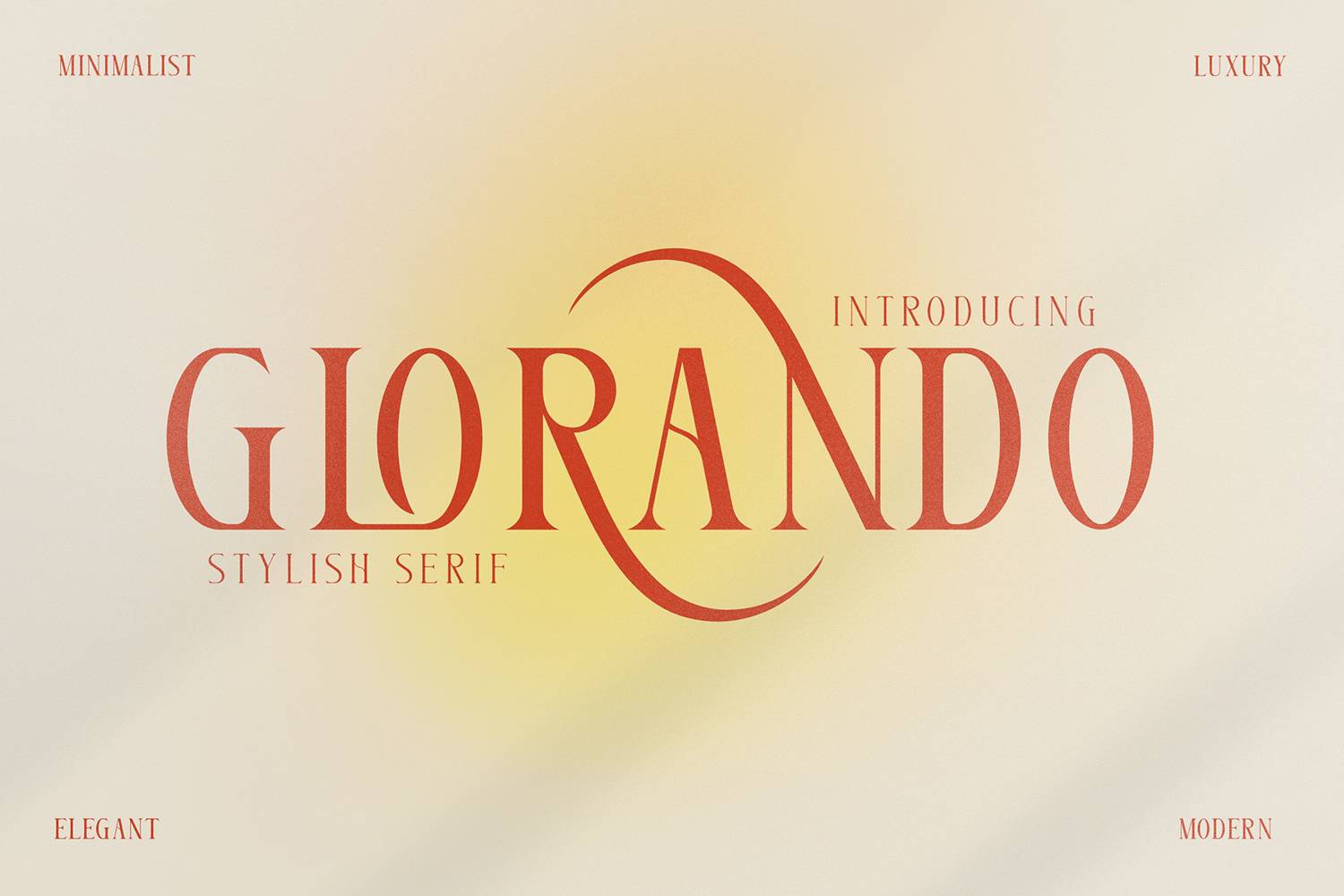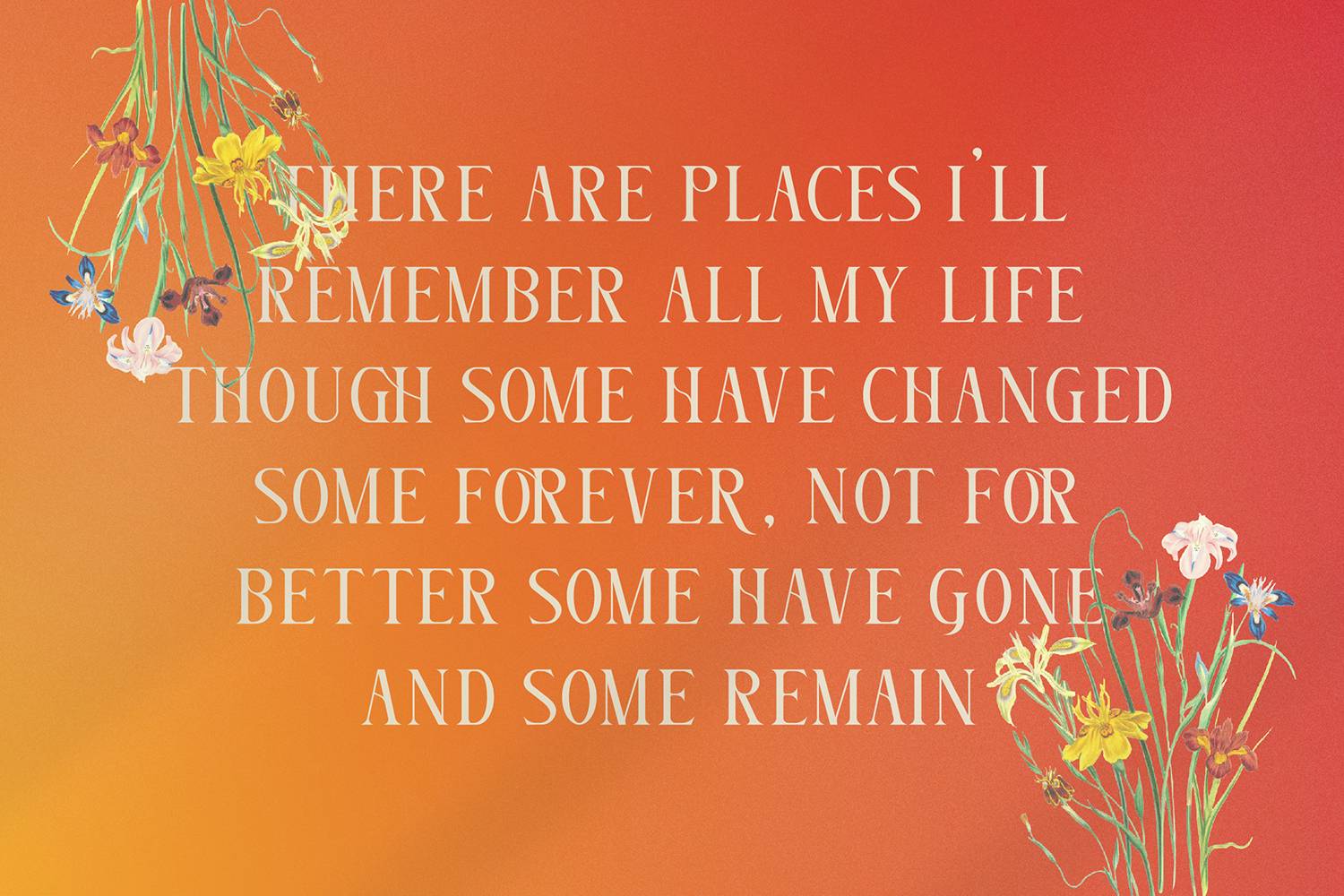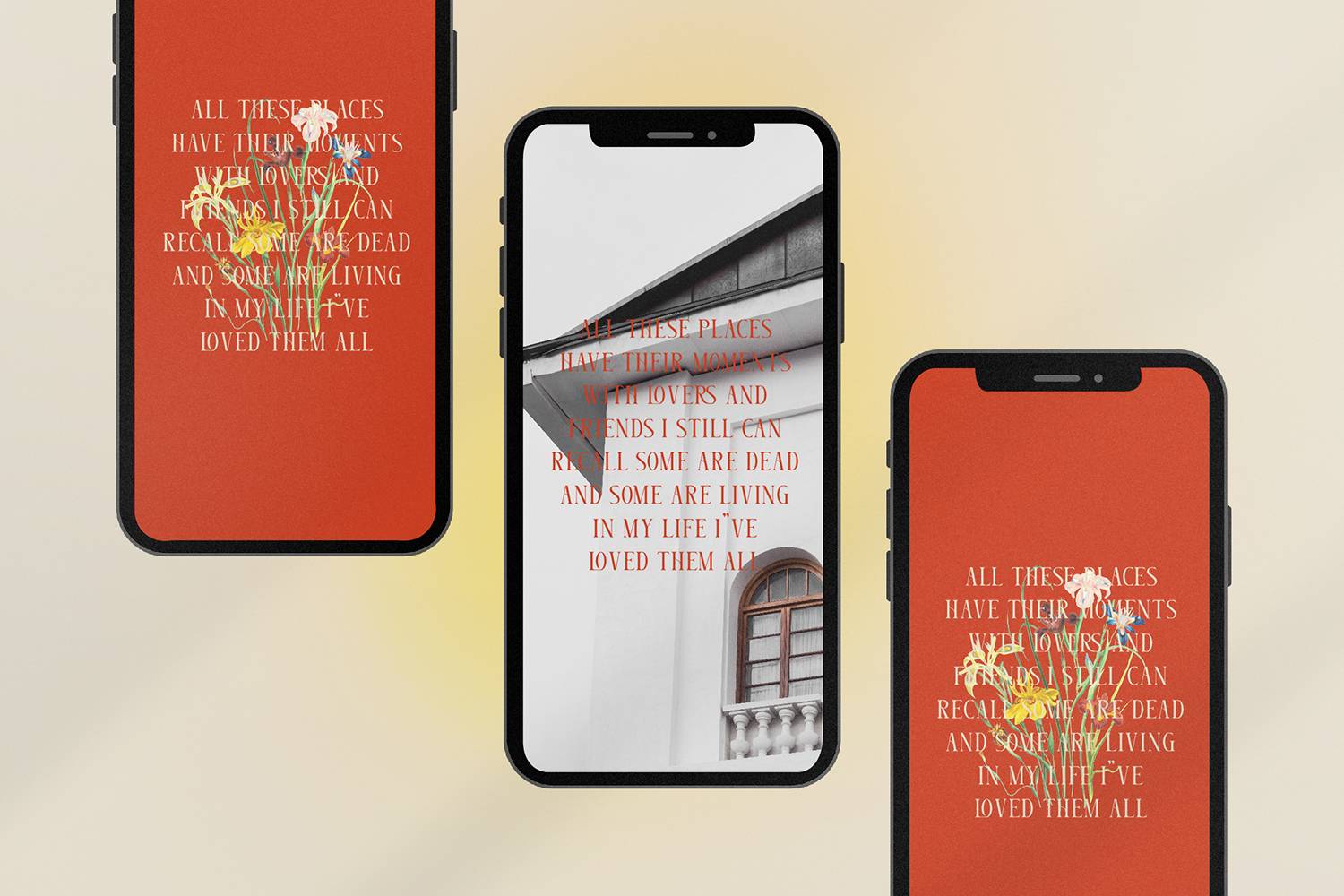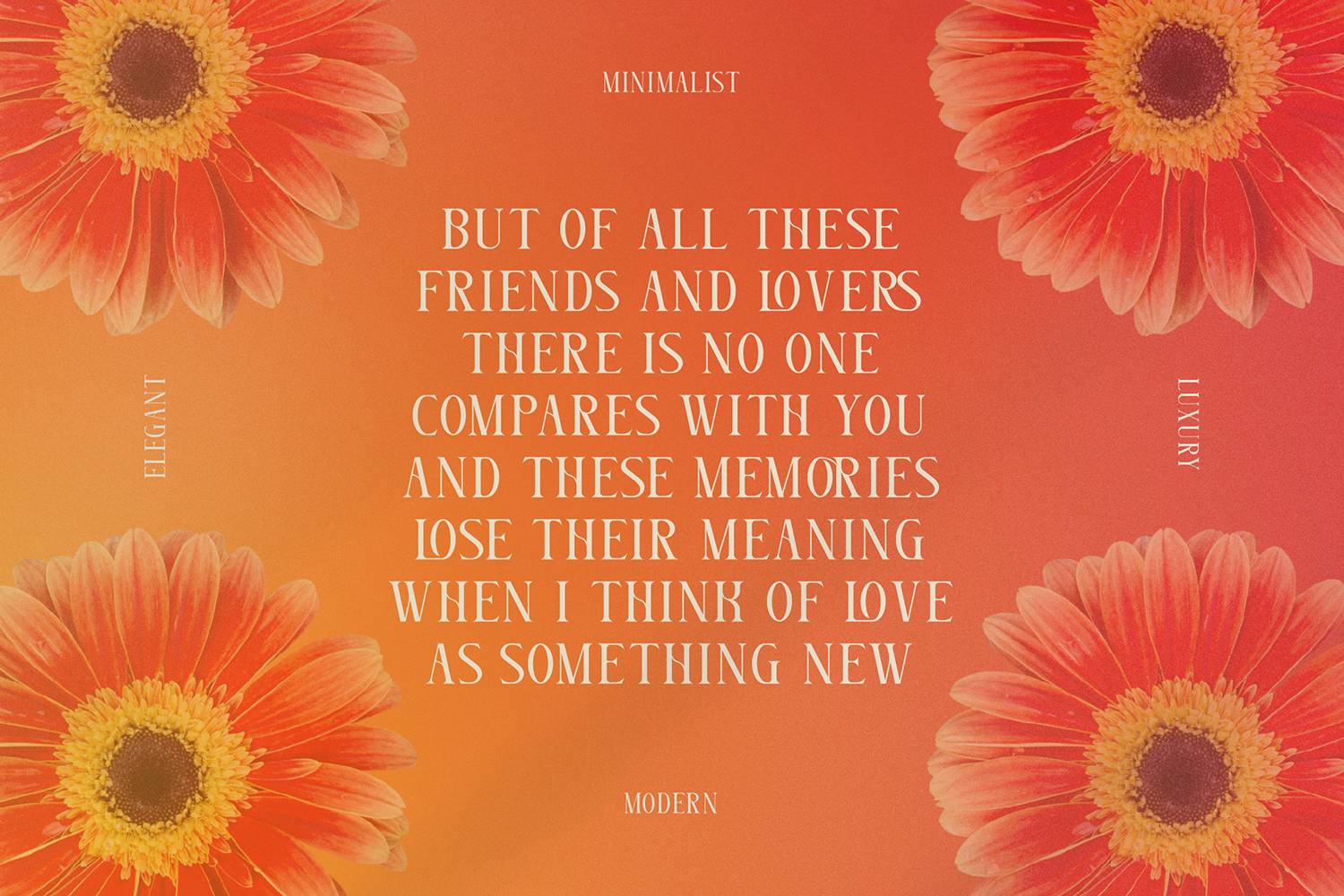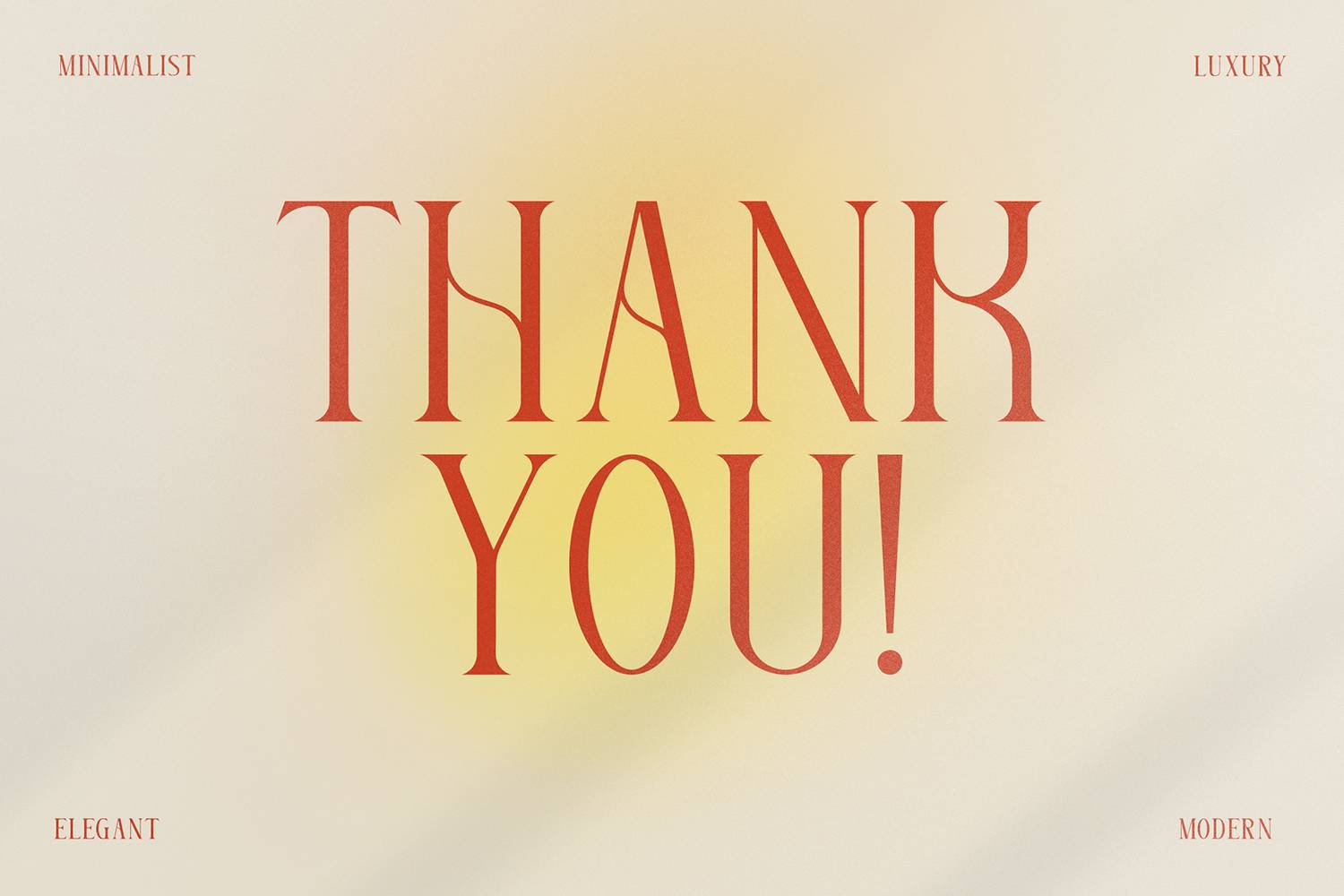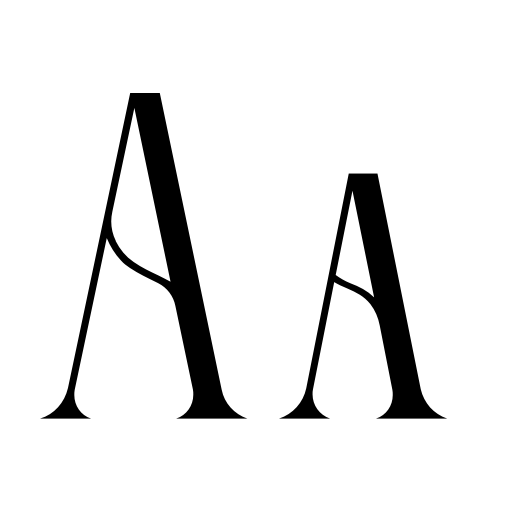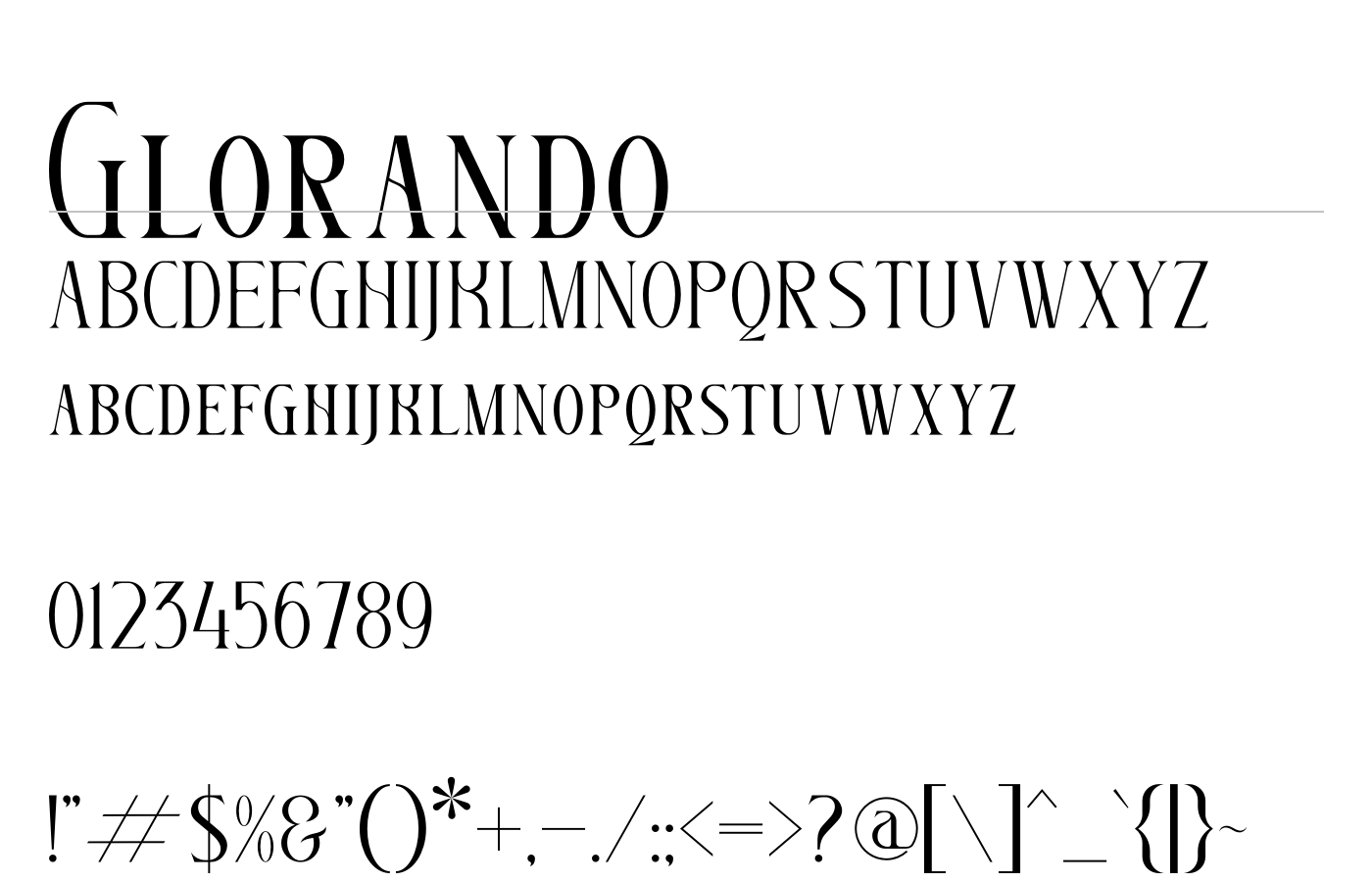
Glorando is an elegant and narrow serif font with a high contrast between thick and thin strokes, featuring thin, sharp serifs and a tall x-height that adds sophistication and legibility. Its distinctive elongated letterforms and refined details give it a stylish, vintage-inspired look perfect for luxury branding, editorial headlines, and high-end packaging where a touch of classic glamour is desired.
Glorando Font
About Glorando Font